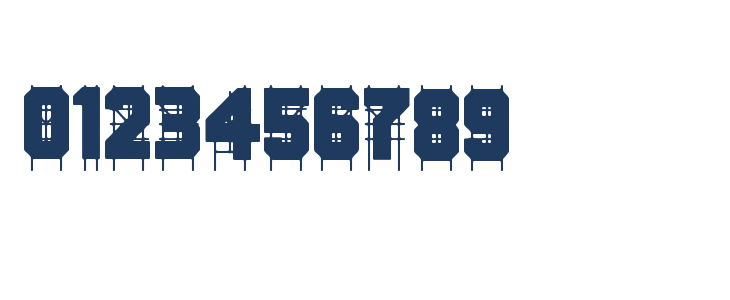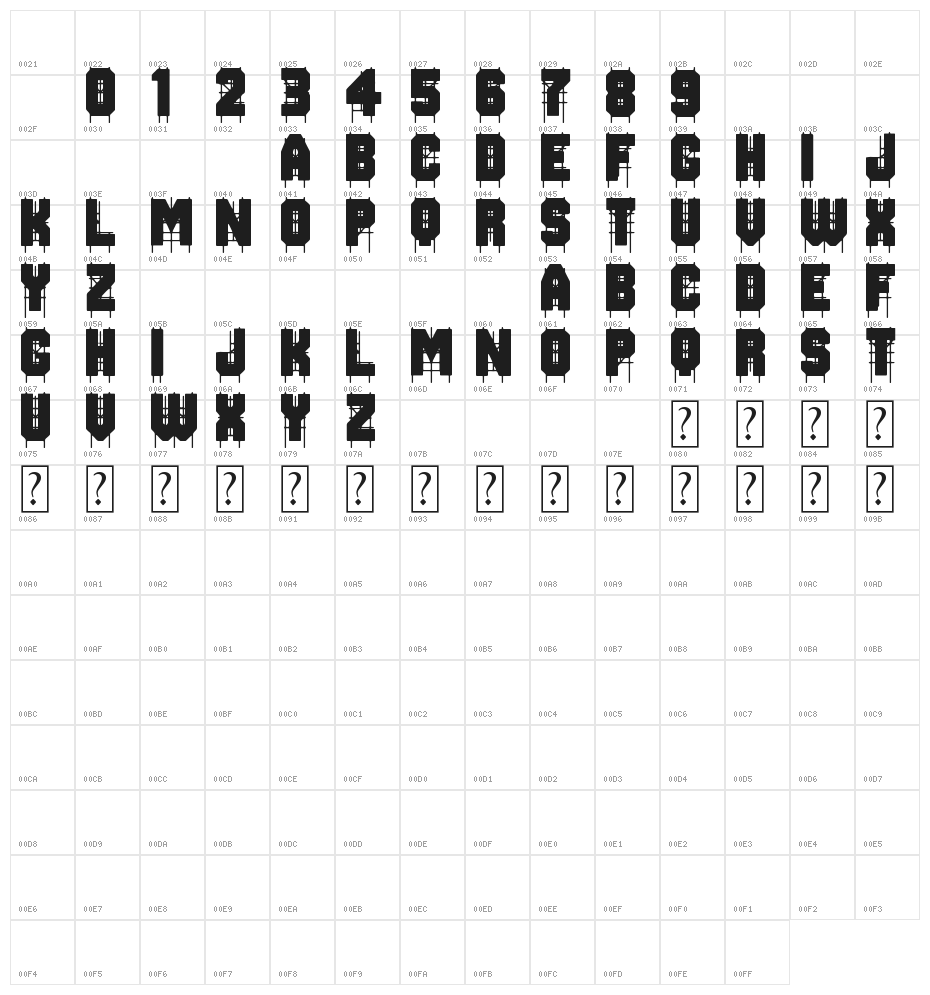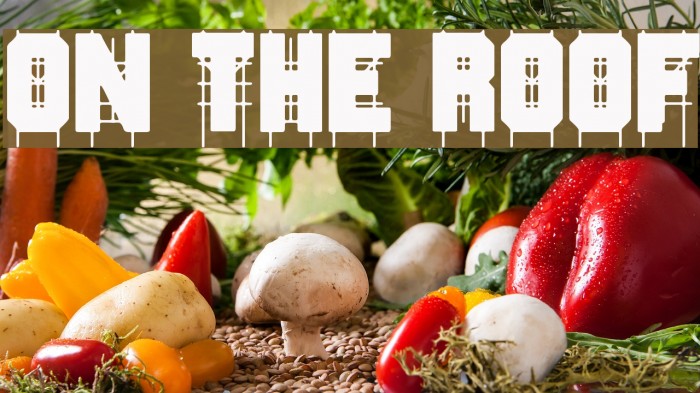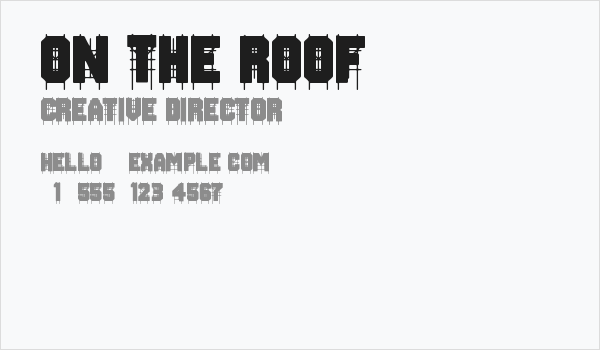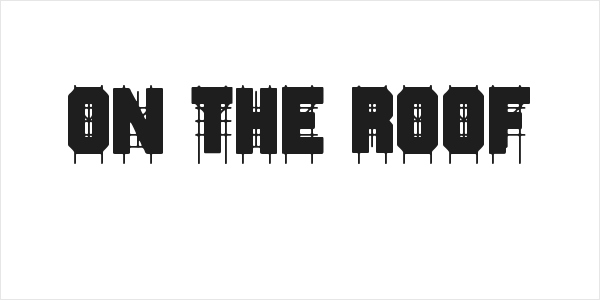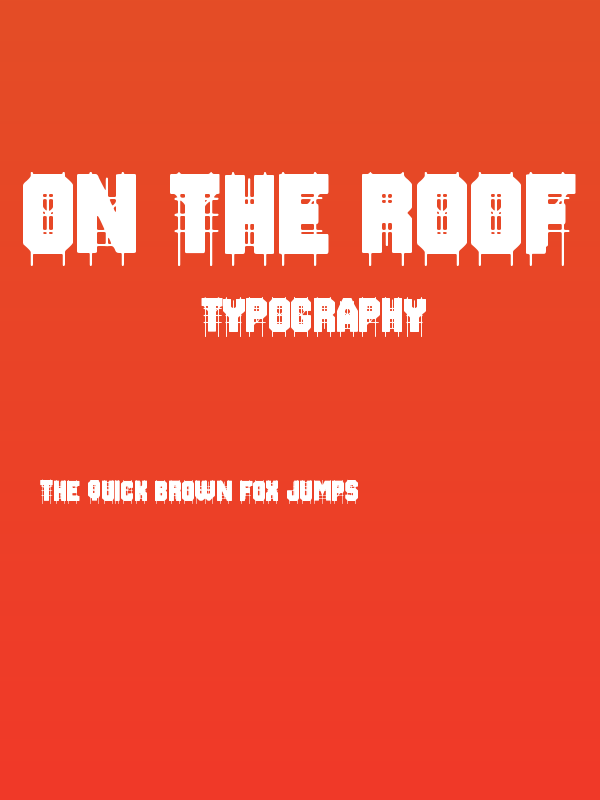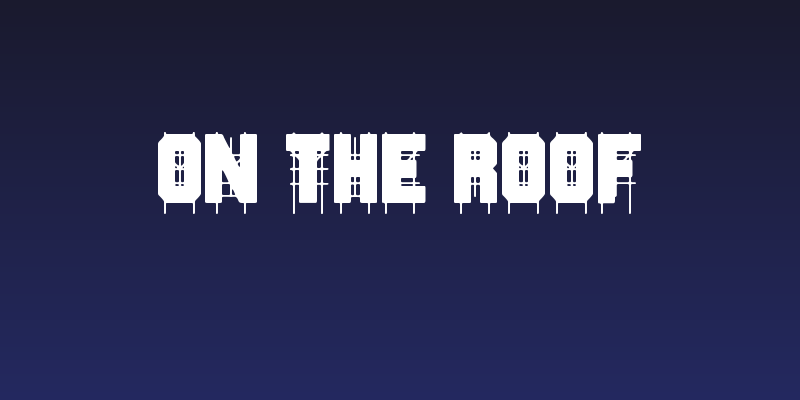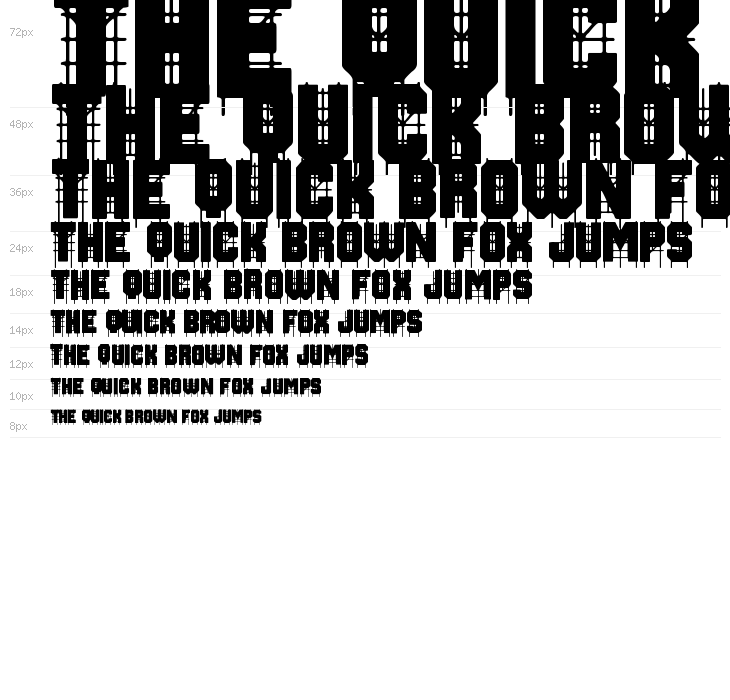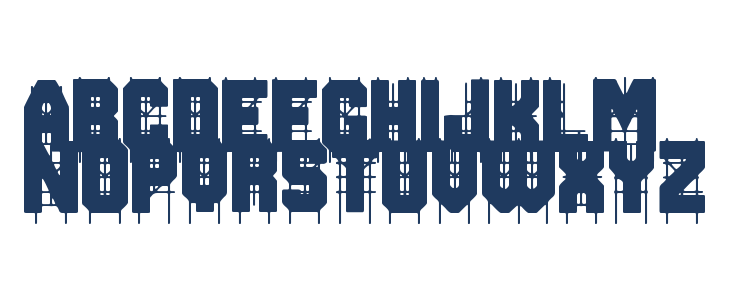
On The Roof Font
On The Roof Description
This font features a bold, architectural style with a unique design that incorporates elements resembling buildings or structures. Each character is constructed with a solid, blocky form, and includes intricate details that mimic windows and scaffolding, giving it an urban, industrial feel. The letters are uniformly wide, with a consistent height, creating a cohesive and striking appearance. The font's design is highly decorative, making it ideal for projects that require a strong visual impact. Its distinctive style is reminiscent of cityscapes and urban environments, making it perfect for themes related to construction, architecture, or metropolitan life. The characters are evenly spaced, ensuring readability while maintaining their decorative elements. This font is best suited for large displays where its intricate details can be appreciated.
| Overall Style | Urban, Industrial, Decorative |
| Proposed Projects | Ideal for architectural magazines, urban-themed posters, construction company logos, and city event flyers. |